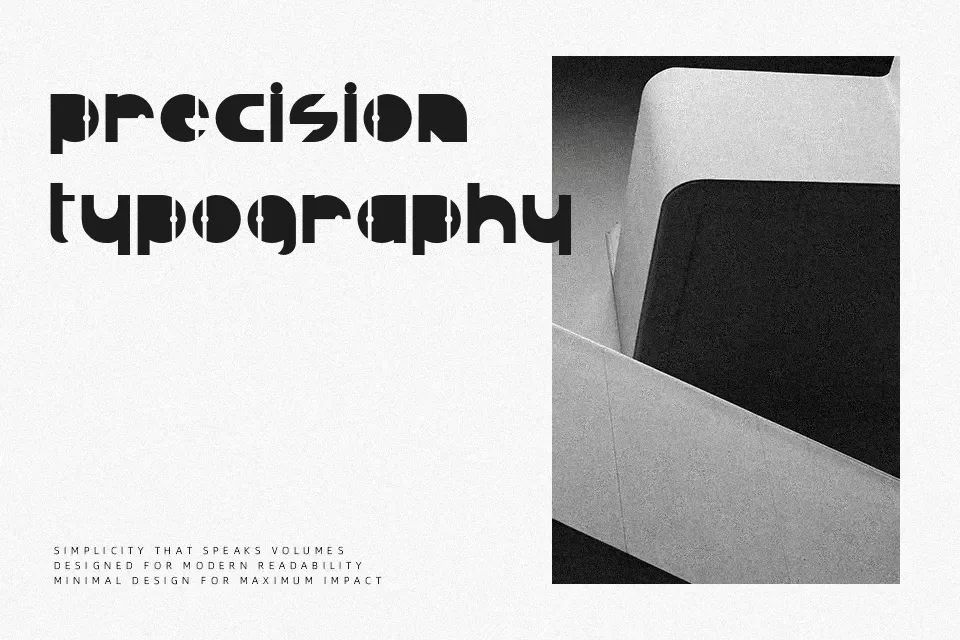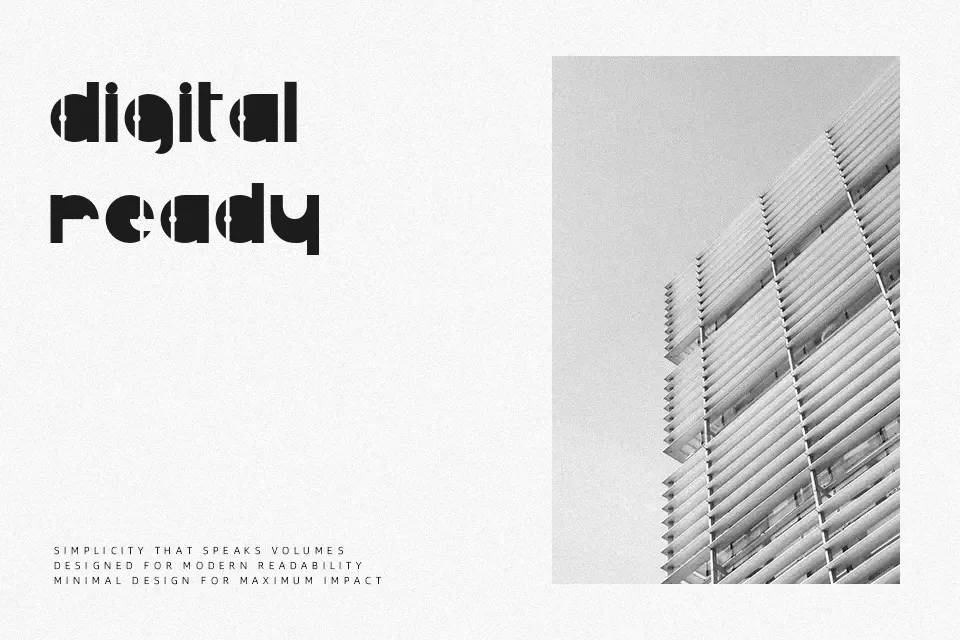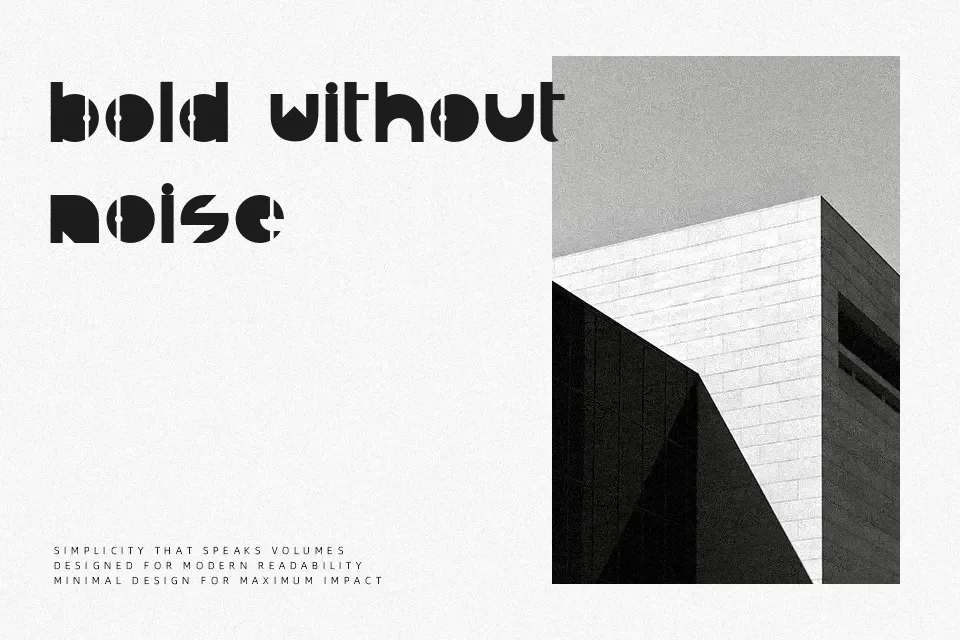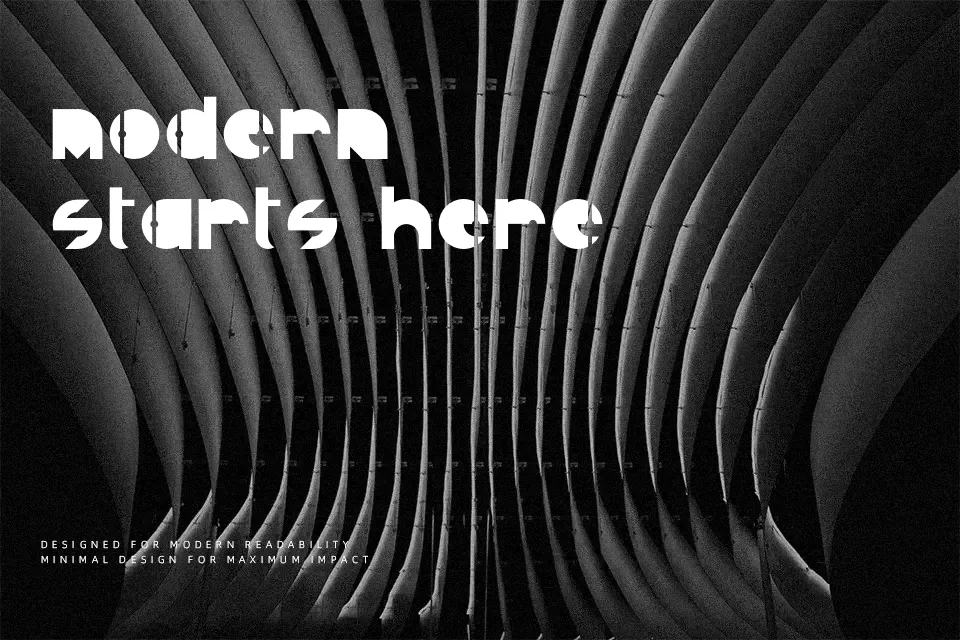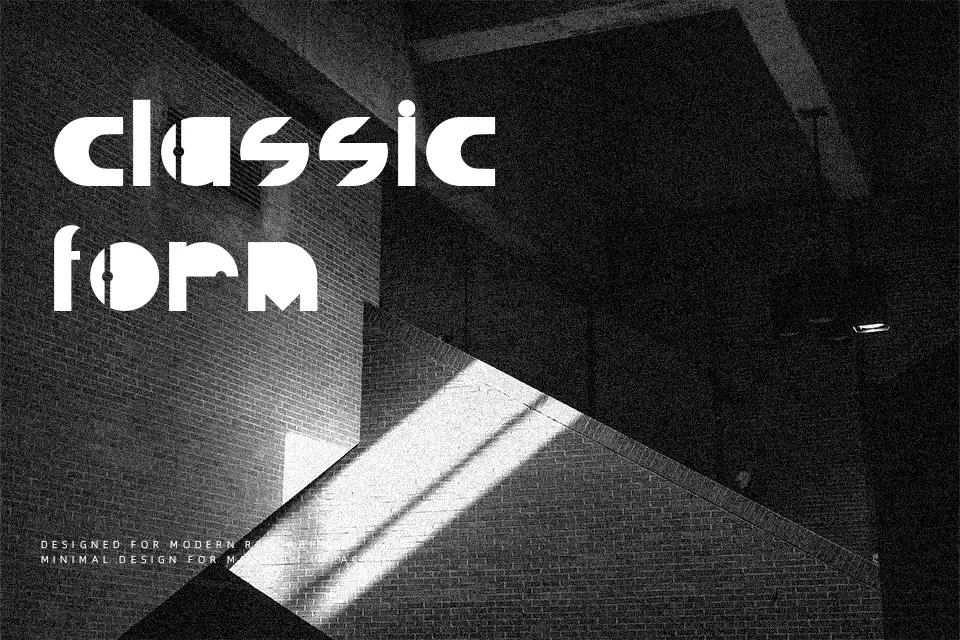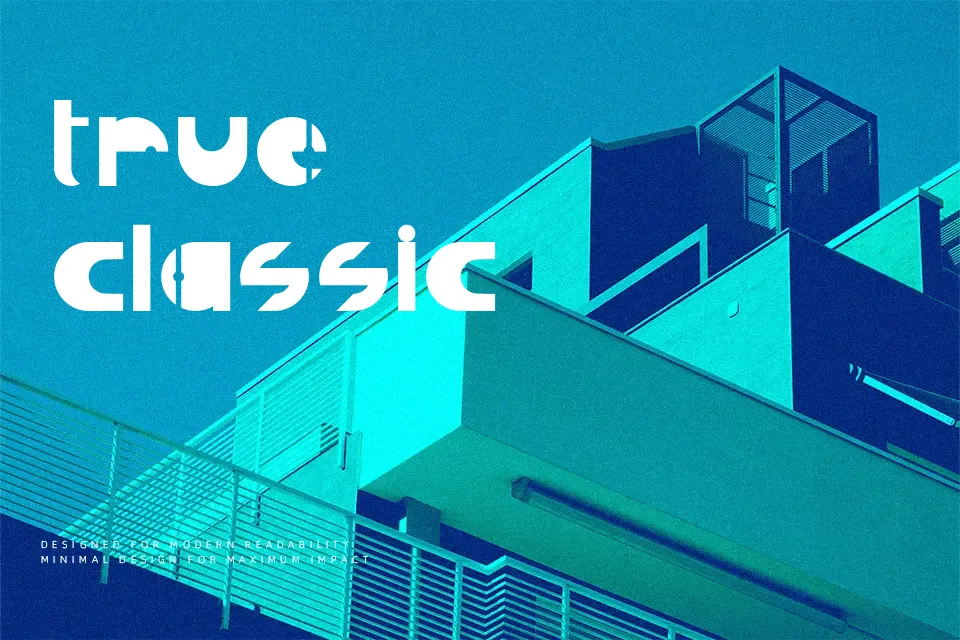
R Judas Sans Font
Structured around precise geometric foundations, the R Judas Sans Font utilizes distinct stencil cuts to create a strong architectural aesthetic. The rigid strokes and balanced proportions give the letterforms a highly constructed, industrial feel. Because of the inherent breaks in the strokes, the spacing feels open and rhythmic across display text. This typeface performs best when displayed at larger scales, where the crisp stencil details remain sharply defined. It provides excellent visual impact for heavy headlines, streetwear branding, and urban event posters. However, the fragmented nature of the characters significantly reduces reading comfort at small scales, making the design unsuitable for extended paragraphs or dense editorial layouts.
urban streetwear apparel, industrial company branding, music festival posters, exhibition headline signage
long continuous paragraphs, small interface labels, corporate financial reports, dense editorial layouts
Perfect for branding, fashion, and headline, with a bold and geometric style.